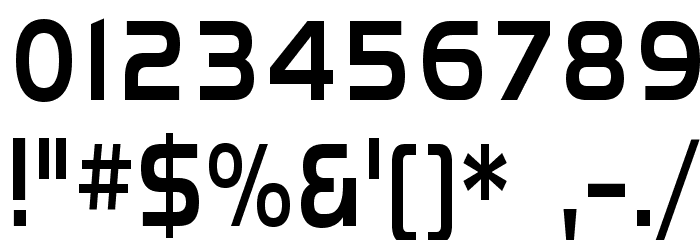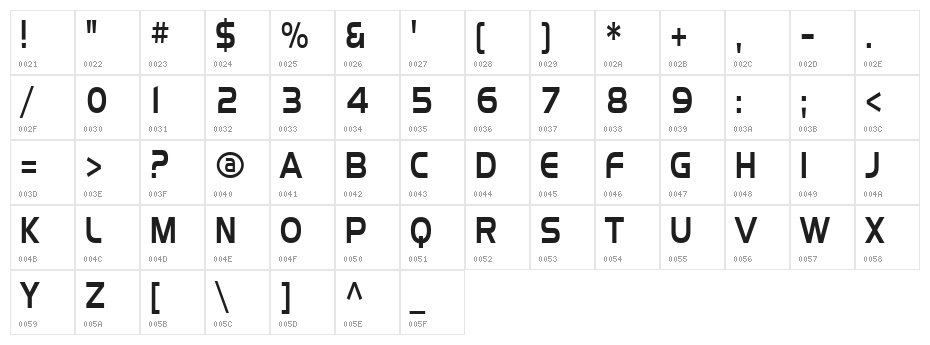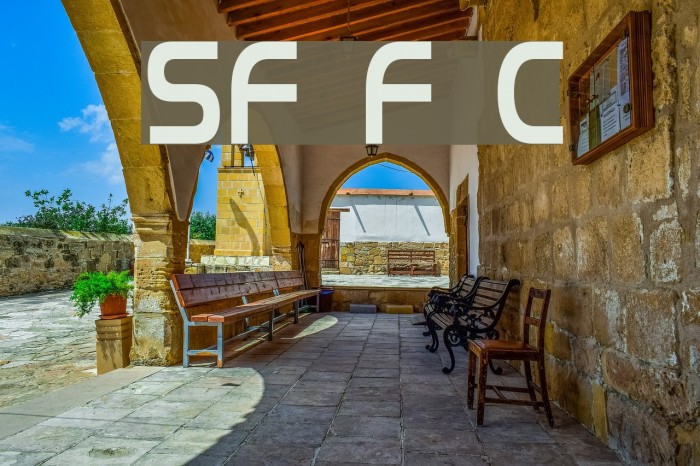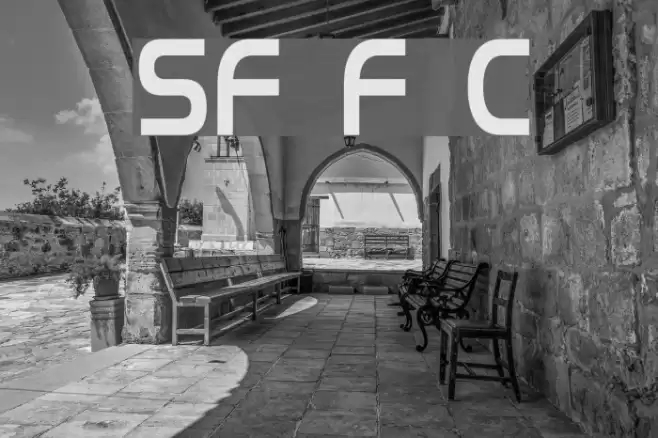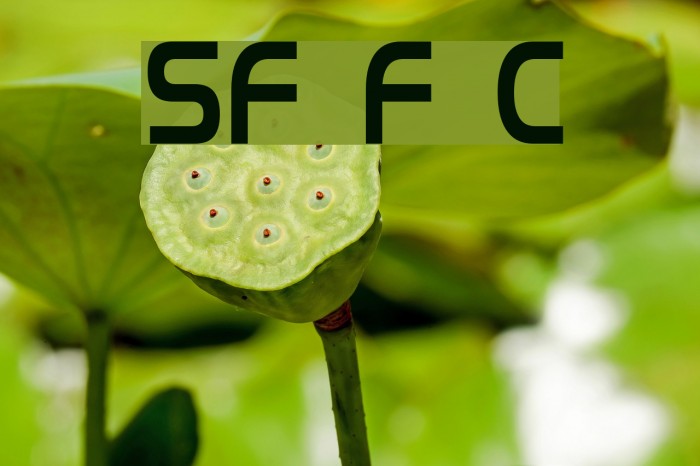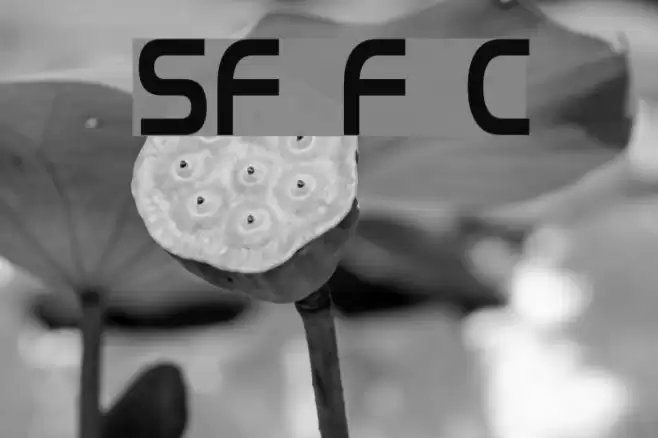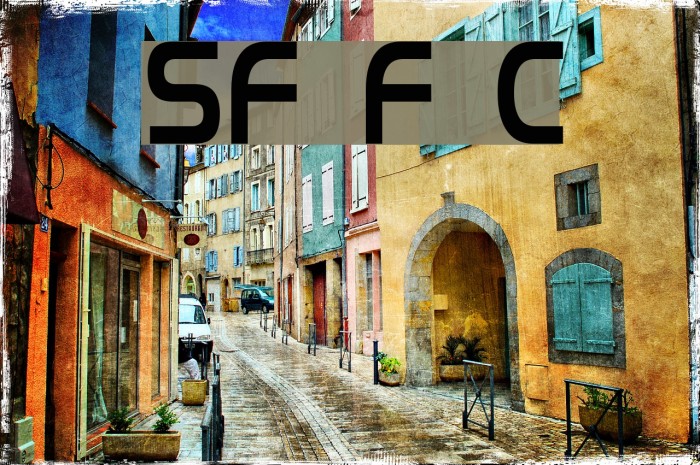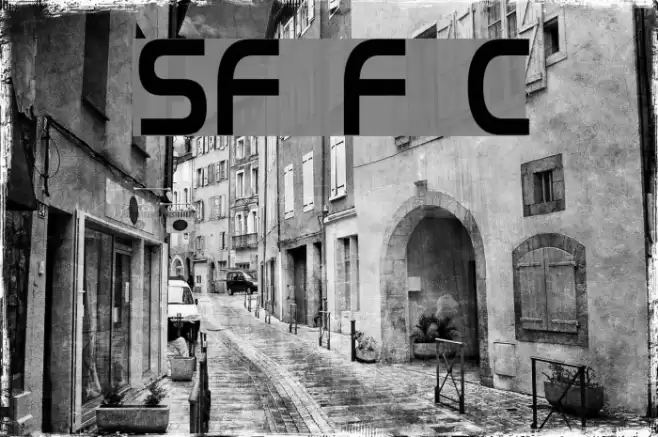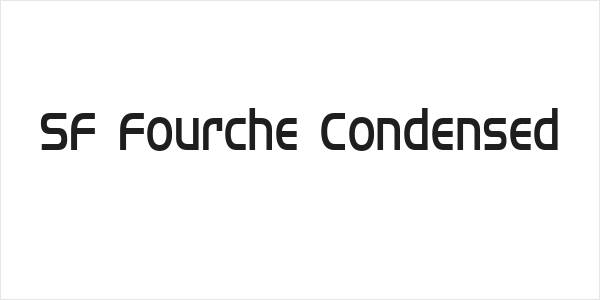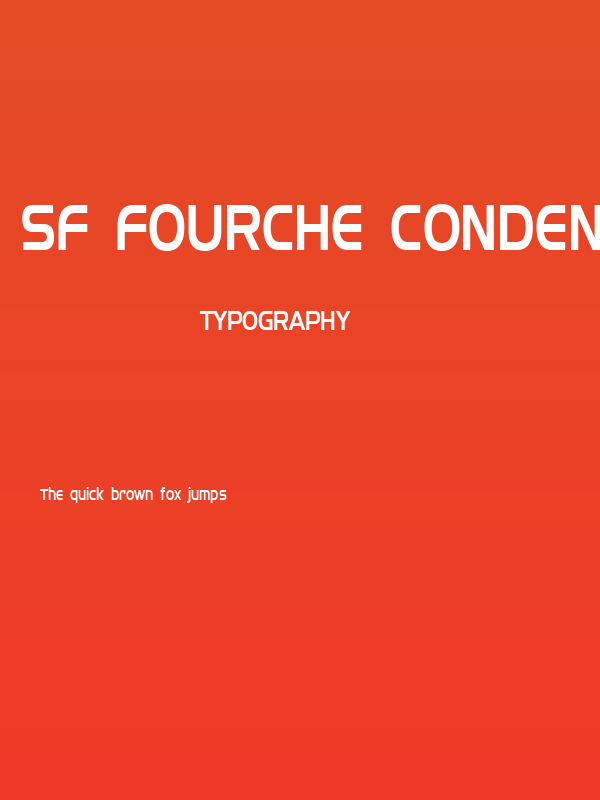
SF Fourche Condensed Font
SF Fourche Condensed Description
This typeface features a clean, modern design with a geometric structure. The characters are uniformly condensed, giving it a sleek and compact appearance. The strokes are consistent in width, contributing to a uniform look across all characters. The uppercase and lowercase letters maintain a harmonious balance, while the numerals and special characters are designed to match the overall aesthetic. The font's simplicity and clarity make it highly legible, even at smaller sizes. Its contemporary style is suitable for a variety of digital and print applications.
| Proposed Projects | Ideal for use in digital interfaces, branding, advertising, and editorial design where a modern and clean look is desired. |